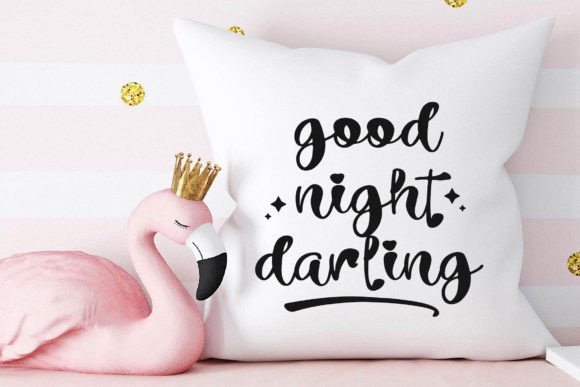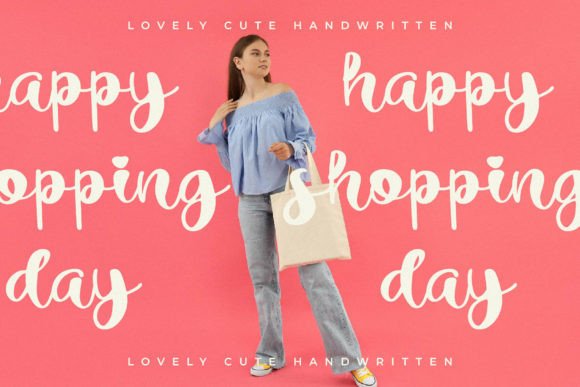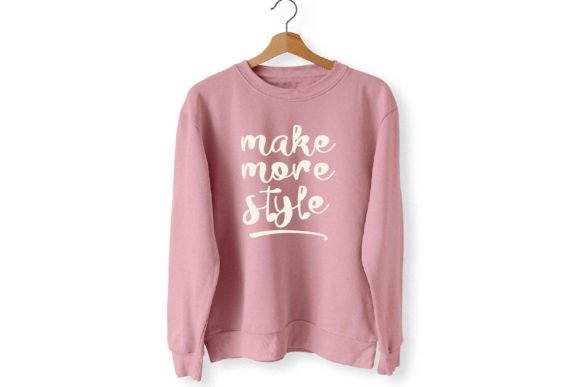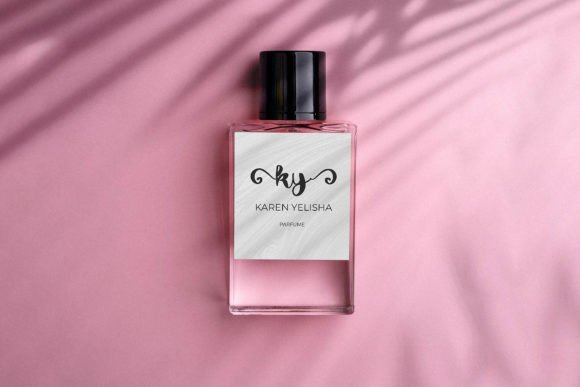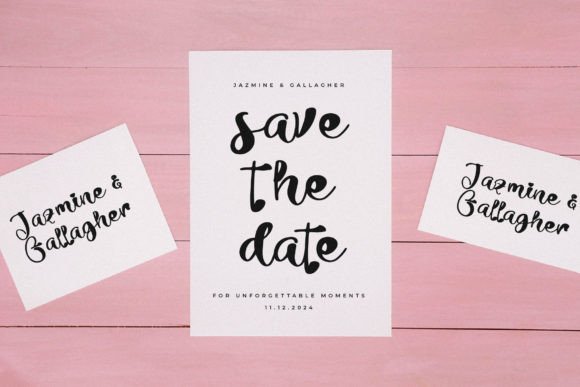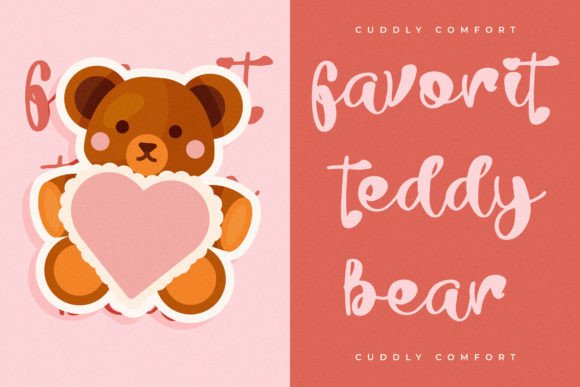
Introducing Butter Lofiy Font: The Ultimate Romantic Script Font for Designers and Crafters
Are you a designer or crafter looking for a beautiful and elegant script font to elevate your projects? Look no further than Butter Lofiy Font! This stunning romantic script font is perfect for a wide range of applications, from logos and branding projects to homeware designs, product packaging, and more.
What is Butter Lofiy Font?
Butter Lofiy Font is a carefully crafted script font that exudes romance and sophistication. Its flowing lines and delicate curves make it perfect for designs that require a touch of elegance and whimsy. Whether you’re working on a logo, invitation card, or product packaging, Butter Lofiy Font is sure to add a beautiful script taste to your project.
What Can I Use Butter Lofiy Font For?
The versatility of Butter Lofiy Font is one of its standout features. This font can be used for a wide range of projects, including:
• Logos and branding projects: Create a lasting impression with a beautiful and elegant logo that showcases your brand’s personality.
• Homeware designs: Add a touch of sophistication to your homeware designs, from ceramics to textiles.
• Product packaging: Make your product stand out on store shelves with eye-catching packaging that features Butter Lofiy Font.
• Mugs and ceramics: Create beautiful and functional items that will make perfect gifts or personal additions to any home.
• Quotes and posters: Add a touch of elegance to your inspirational quotes and posters.
• Shopping bags: Elevate your brand’s packaging with stylish and reusable shopping bags featuring Butter Lofiy Font.
• T-shirts and apparel: Create stunning and unique apparel that will make a statement.
• Book covers and journals: Add a touch of sophistication to your book covers and journals.
• Name cards and invitation cards: Create beautiful and elegant cards for any special occasion.
• Greeting cards and labels: Add a personal touch to your greeting cards and labels.
• Photography and watermark: Use Butter Lofiy Font to add a touch of elegance to your photography and watermark.
• Special events: Create stunning and memorable designs for any special event, from weddings to anniversaries.
Why Choose Butter Lofiy Font?
So why choose Butter Lofiy Font over other script fonts? Here are just a few reasons:
• Unique and elegant design: Butter Lofiy Font features a unique and elegant design that will set your projects apart from the rest.
• High-quality and versatile: This font is designed to be versatile and can be used for a wide range of projects.
• Easy to read and use: Despite its elegant design, Butter Lofiy Font is easy to read and use, making it perfect for both digital and print projects.
• Perfect for romantic and whimsical designs: If you’re looking to create a design that exudes romance and whimsy, Butter Lofiy Font is the perfect choice.
Tips for Using Butter Lofiy Font
Here are a few tips for getting the most out of Butter Lofiy Font:
• Pair with bold fonts: Pair Butter Lofiy Font with bold fonts to create a striking contrast that will make your design stand out.
• Use for headlines and titles: Use Butter Lofiy Font for headlines and titles to add a touch of elegance to your design.
• Experiment with colors: Experiment with different colors to find the perfect combination that complements your design.
• Use for digital and print projects: Butter Lofiy Font can be used for both digital and print projects, making it a versatile addition to your font collection.
In conclusion, Butter Lofiy Font is a beautiful and elegant script font that is perfect for designers and crafters looking to add a touch of romance and whimsy to their projects. With its versatility, unique design, and ease of use, Butter Lofiy Font is a must-have font for any designer or crafter looking to elevate their designs.